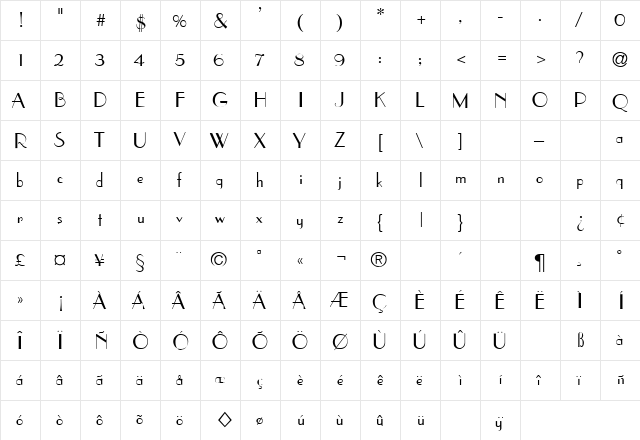
ParisianT Regular
Design Context for ParisianT Typeface
ParisianT is a composed and adaptable typeface that performs quietly and consistently across a wide range of design contexts.